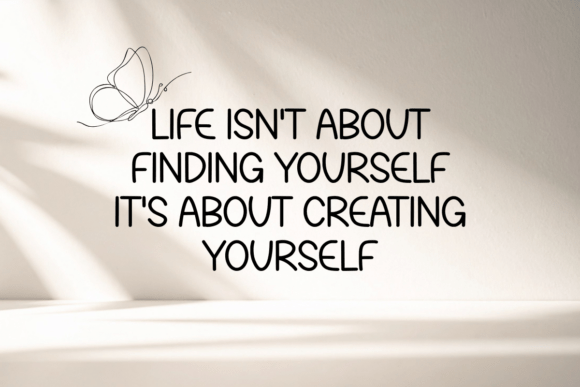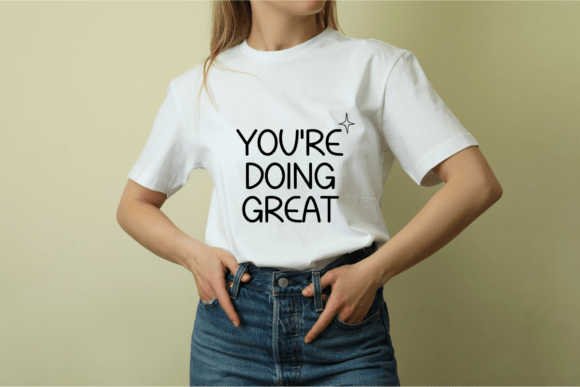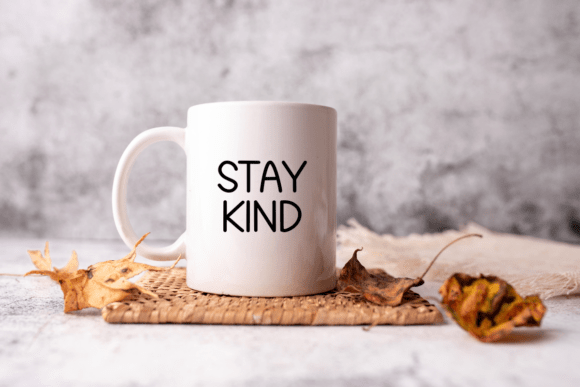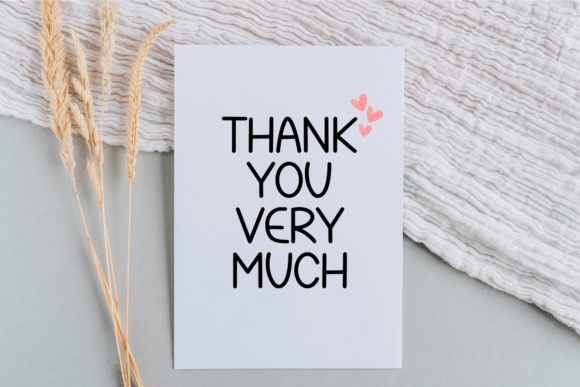
Introduction to Simple Minimal Font Font
Fonts play a crucial role in design, and the Simple Minimal Font font is a typeface that brings both character and versatility to any project. Whether you’re working on a branding project, a website, or a print design, the Simple Minimal Font font offers a unique style that can elevate your work.
Simple Minimal is a cool handwriting font with cute aesthetic natural vibes.
Perfect for cricut, planner, mug, sticker, journal, invitation, greeting card, kdp, scrapbooking, crafting, tote bag, quotes, keychain, notes and more This font brings a playful and cute look to your designs.
Key Features of Simple Minimal Font Font
Why Choose Simple Minimal Font Font?
The Simple Minimal Font font is more than just a typeface – it’s a design tool that helps you communicate your message with style and clarity. Its unique character set and versatile design make it suitable for a wide range of applications, from elegant invitations to bold headlines.
With its carefully crafted letterforms and balanced proportions, the Simple Minimal Font font ensures readability and visual appeal across all mediums.
What makes Simple Minimal Font font special?
The Simple Minimal Font font stands out with its unique design, exceptional readability, and versatility across various design applications.